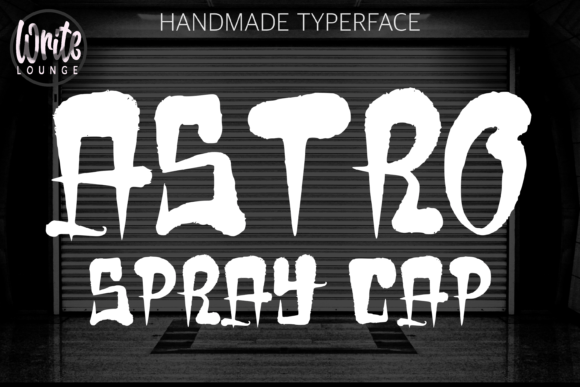
Astro Spray Cap Font: The Ultimate Graffiti Display Font for Urban Projects
Are you looking for a font that can add a touch of urban grit to your design projects? Look no further than the Astro Spray Cap Font. This custom graffiti display font is designed to mimic the look of spray paint, making it perfect for a wide range of urban, street-wear projects. In this article, we’ll take a closer look at the Astro Spray Cap Font, its features, and how you can use it to take your designs to the next level.
What is Astro Spray Cap Font?
Astro Spray Cap Font is a custom-designed graffiti display font that is inspired by the urban art of graffiti. The font is designed to look like it’s been sprayed with a spray can, giving it a rough, edgy feel that’s perfect for urban, street-wear projects. The font is highly stylized, with bold lines and a distressed texture that gives it a unique, one-of-a-kind look.
Features of Astro Spray Cap Font
The Astro Spray Cap Font has a number of features that make it perfect for urban, street-wear projects. Some of the key features of the font include:
- Graffiti-inspired design: The font is designed to mimic the look of graffiti, with bold lines and a distressed texture.
- Spray can effect: The font is designed to look like it’s been sprayed with a spray can, giving it a rough, edgy feel.
- Highly stylized: The font is highly stylized, with a unique, one-of-a-kind look that’s perfect for urban, street-wear projects.
- Distressed texture: The font has a distressed texture that gives it a rough, worn look.
How to Use Astro Spray Cap Font
The Astro Spray Cap Font is perfect for a wide range of urban, street-wear projects. Here are a few ideas for how you can use the font:
- T-Shirt designs: The font is perfect for designing t-shirts, hoodies, and other streetwear apparel.
- Posters and flyers: The font is great for creating posters and flyers for urban events, such as concerts, festivals, and parties.
- Logos and branding: The font can be used to create logos and branding for urban businesses, such as skate shops, record labels, and clothing stores.
- Social media graphics: The font is perfect for creating social media graphics, such as Instagram posts and Facebook covers.
Benefits of Using Astro Spray Cap Font
There are a number of benefits to using the Astro Spray Cap Font in your design projects. Some of the key benefits include:
- Unique look: The font has a unique, one-of-a-kind look that’s sure to grab attention.
- Urban feel: The font has an urban feel that’s perfect for street-wear projects.
- High-quality design: The font is designed to high-quality standards, with bold lines and a distressed texture.
The Astro Spray Cap Font is a unique and versatile font that’s perfect for urban, street-wear projects. With its graffiti-inspired design, spray can effect, and distressed texture, the font is sure to add a touch of urban grit to your designs. Whether you’re designing t-shirts, posters, logos, or social media graphics, the Astro Spray Cap Font is a great choice. So why wait? Download the Astro Spray Cap Font today and start creating amazing designs!